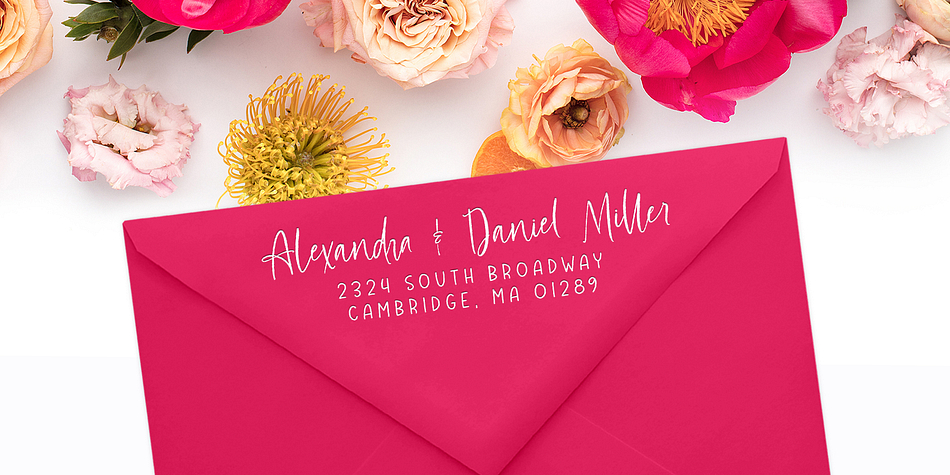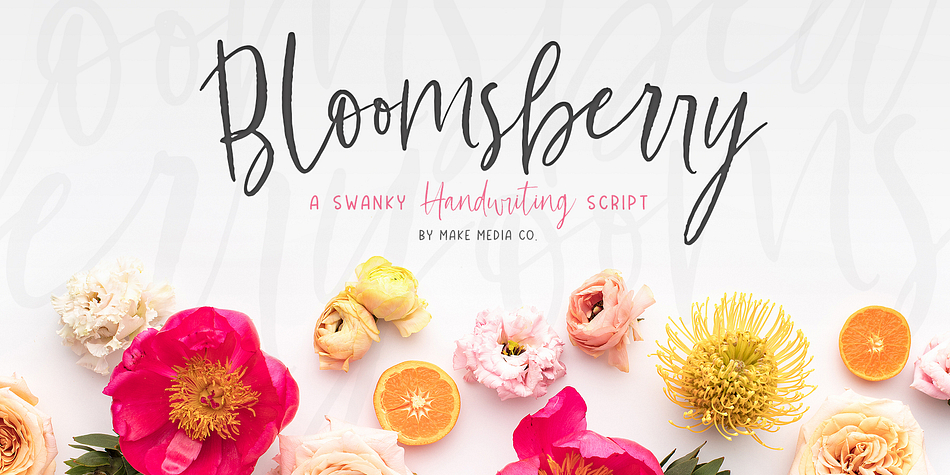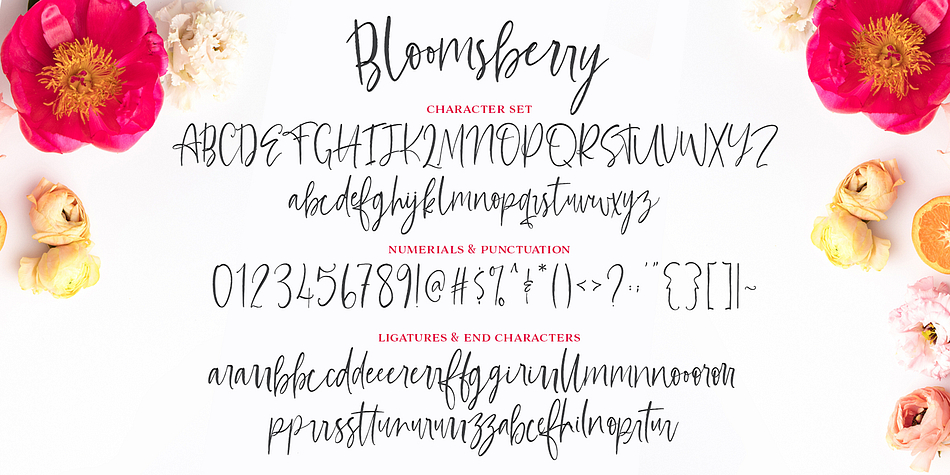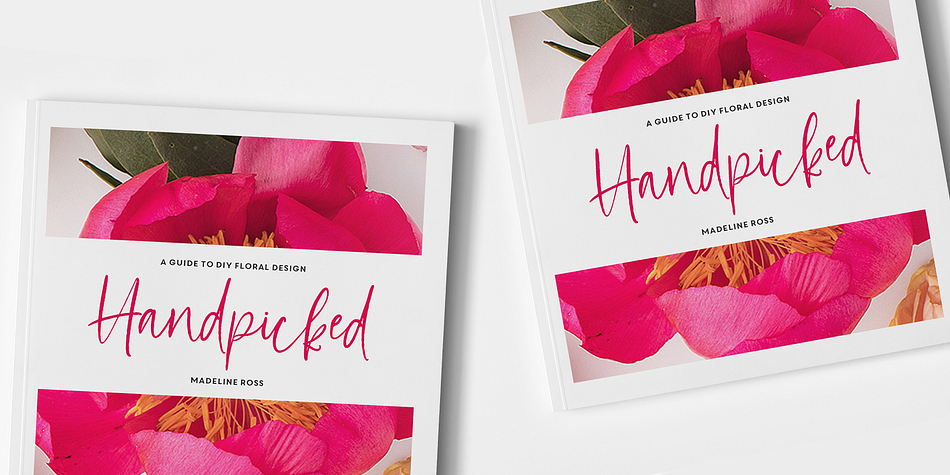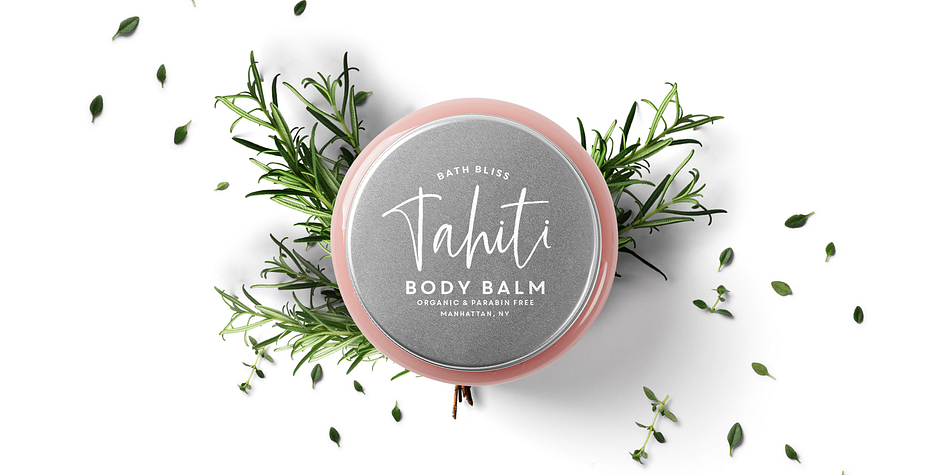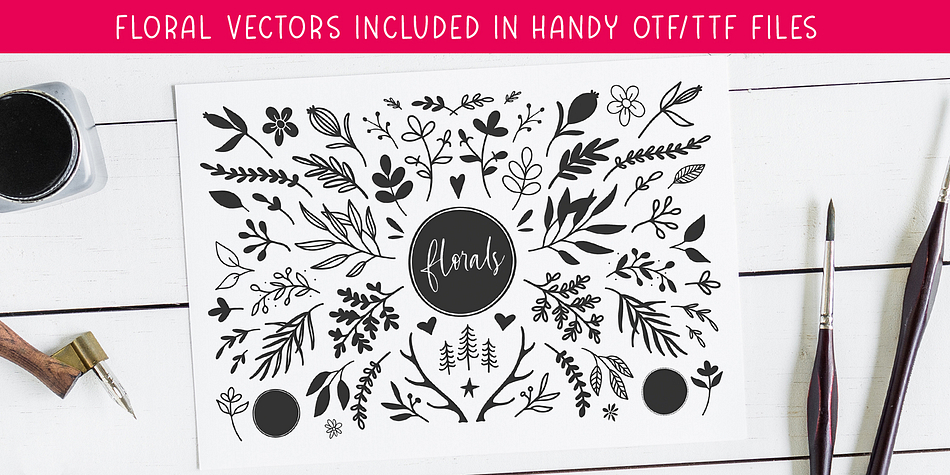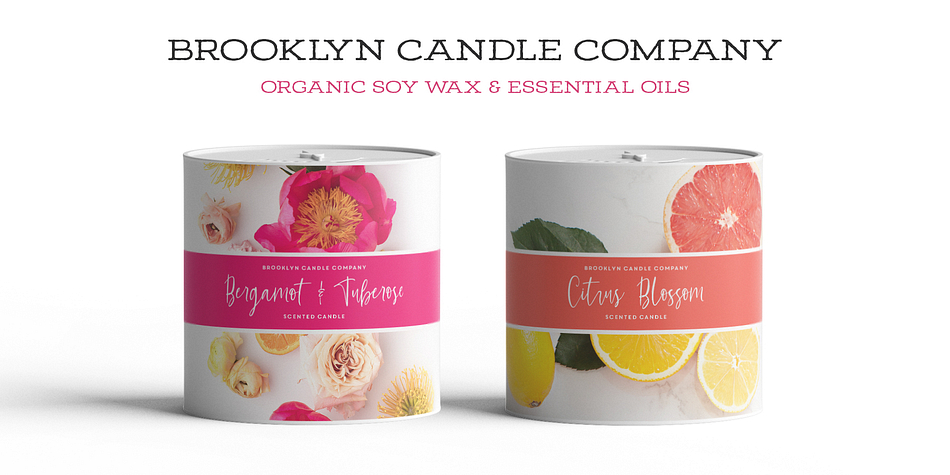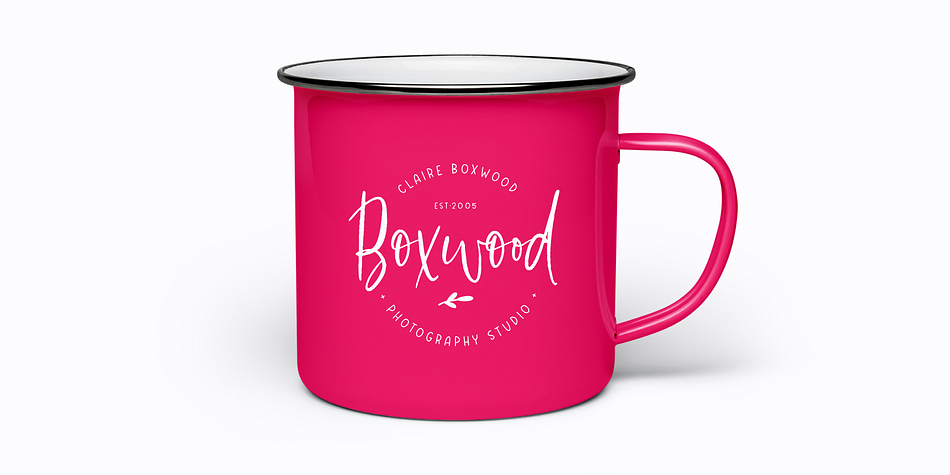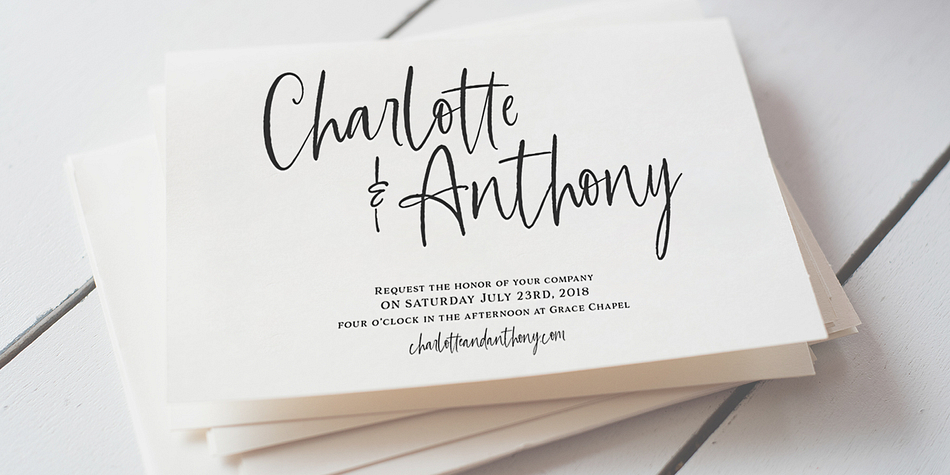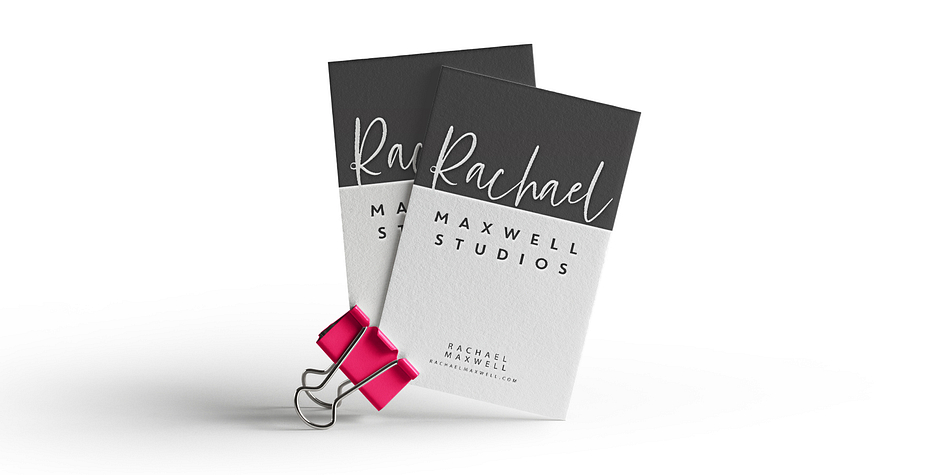
Bloomsberry is a dingbat, display sans and modern calligraphy font family. This typeface has six styles and was published by MakeMediaCo.
Meet Bloomsberry! A swanky, yet sweet handwriting font and its adorable sans-serif sidekick (in three weights). Bloomsberry was designed to fit everything from logos, to packaging, to invitation design. And looks especially awesome as headlines, and signatures. Combine the Bloomsberry fonts with the floral dingbats to create flirty, organic logos and branding materials, or size-it-up for magazine covers and packaging designs. Make this beautiful set part of your design arsenal today!
Styles | Display Sans, Modern Calligraphy, Dingbat |